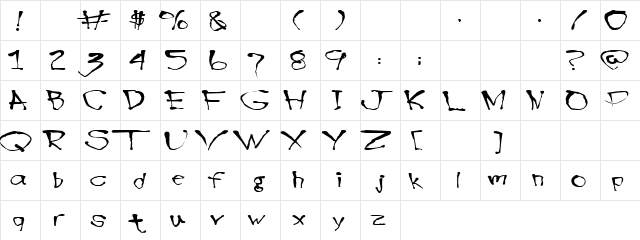
Nightmare True Regular
Design Context for Nightmare True Typeface
Nightmare True is a composed and adaptable typeface that performs quietly and consistently across a wide range of design contexts.